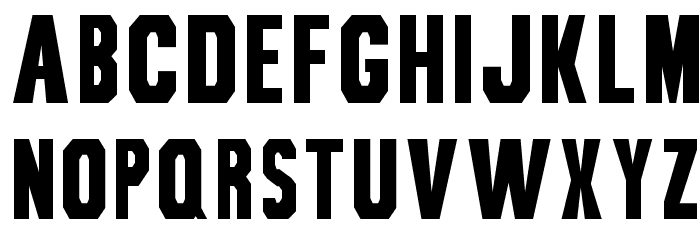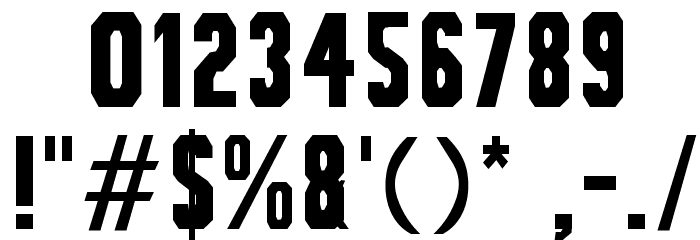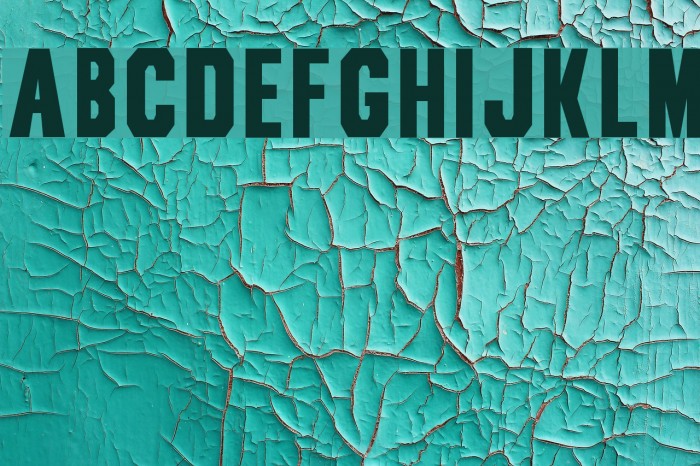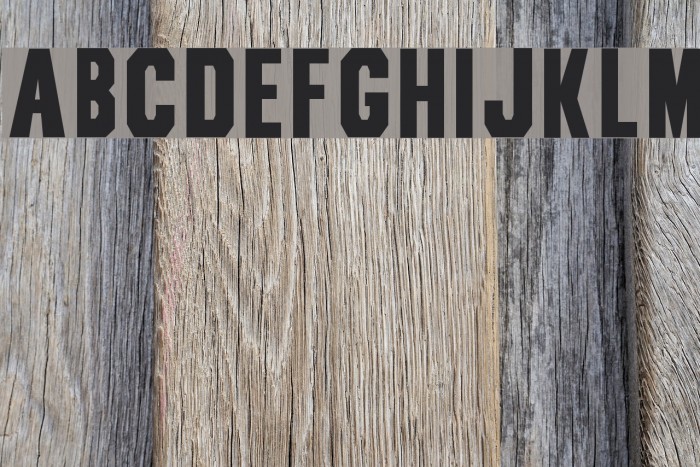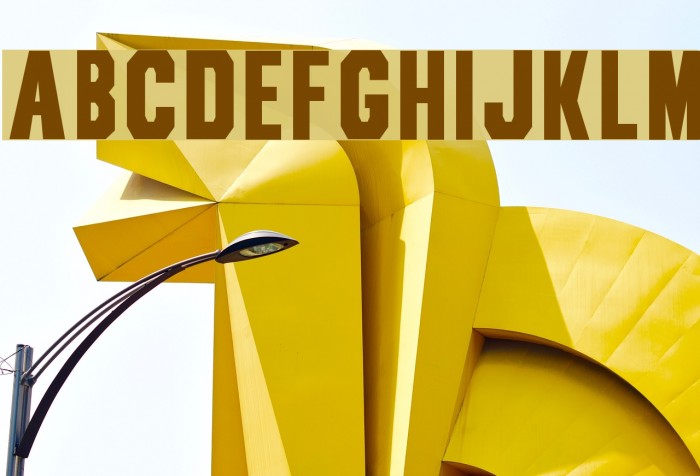
Bou Collegiate Font
This font features a bold, collegiate style with strong, angular lines and a robust presence. The uppercase letters are prominent and commanding, making it ideal for headlines and titles. The numbers and special characters maintain the same boldness, ensuring consistency across all text elements. The font's design is reminiscent of traditional varsity and sports team lettering, evoking a sense of strength and tradition. Its geometric shapes and solid structure make it highly legible from a distance, perfect for impactful designs.
A bold, collegiate-style font with strong, angular lines.
- Proposed Projects: Ideal for sports team branding, school merchandise, event posters, and any project requiring a bold, traditional look.
- Overall Style: Classic